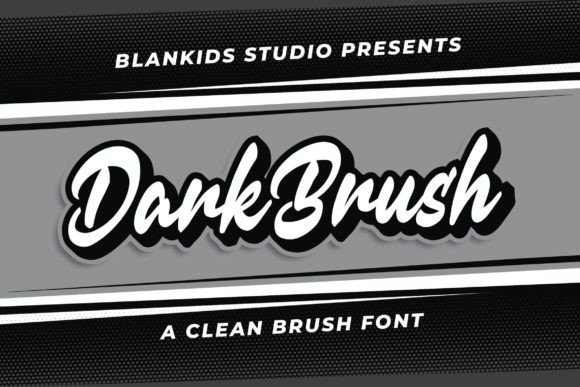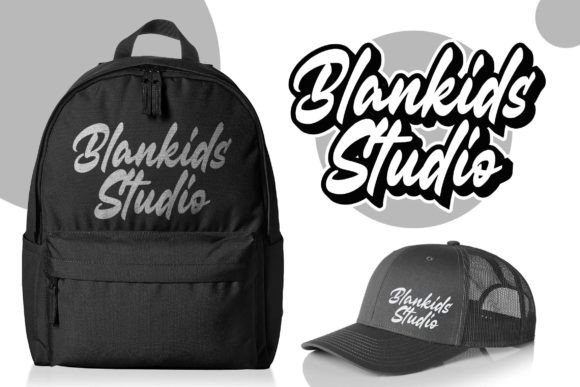
About Dark Brush Font
If you’re in search of a clean brush script font to infuse your designs with creativity, imagination, and playful energy, look no further than “Dark Brush.” This font is inspired by brush lettering-style typography and offers a unique and attractive design that can make your projects stand out.
“Dark Brush” is well-suited for various design applications, making it a versatile choice for designers. Its clean brush script style adds a touch of playfulness and creativity to your work. This font can be employed effectively in projects such as book covers, posters, packaging, merchandise, logotypes, and much more.
In the world of design, fonts play a pivotal role in conveying personality, setting the mood, and capturing attention. “Dark Brush” excels in these aspects by offering a clean and attractive script style that inspires creativity and imagination. Its aesthetics infuse your designs with a sense of fun and energy, making them engaging and memorable.
In summary, “Dark Brush” is more than just a font; it’s a clean brush script design tool that can breathe life and playfulness into your projects. Its unique style is ideal for designers seeking to create work that is attractive and imaginative. Whether you’re an experienced designer or just starting your creative journey, “Dark Brush” is the font that can help you create designs that are full of creativity and endless fun.